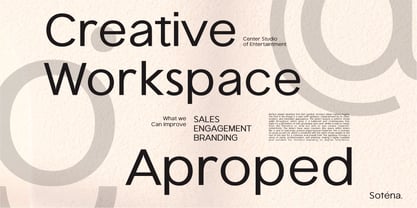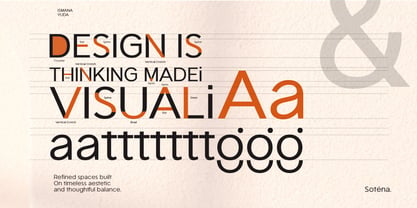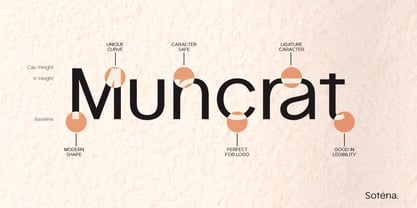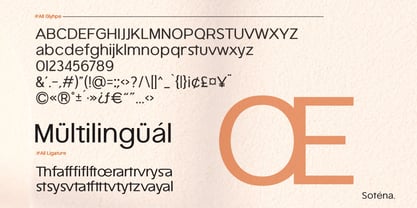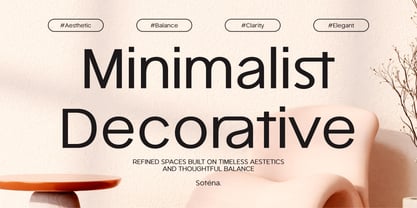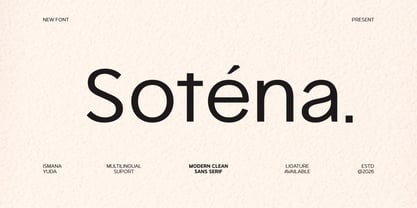
Sotena
by Ismanayuda
The Sotena Font Family was designed by Yuda Ismail and published by Ismanayuda. Sotena contains 1 styles. More about this family
This image showcases Soténa in a real-world lifestyle design context, emphasizing its refined, high-end identity. The layout uses warm, muted terracotta tones, a sleek modern armchair, and minimalistic decor elements to visually mirror the typeface's inherent character.
The font effortlessly balances the starkness of a traditional sans-serif with subtle, high-fashion decorative nuances. Its tall, clean x-height and perfectly rounded curves evoke a sense of quiet luxury and intentional design. The letterforms exude architectural harmony, making the typeface exceptionally well-suited for lifestyle branding, high-end interior design portfolios, luxury fashion lookbooks, and upscale editorial magazines. By pairing bold display headlines with smaller, clean subtext, the composition highlights Soténa’s excellent readability and its ability to anchor an entire brand aesthetic around the principles of balance, clarity, and modern elegance.
Sotena is also included full set of:
-uppercase and lowercase letters
-multilingual support
-numerals-punctuation
-Ligature Characters
Designers: Yuda Ismail
Foundry: Ismanayuda